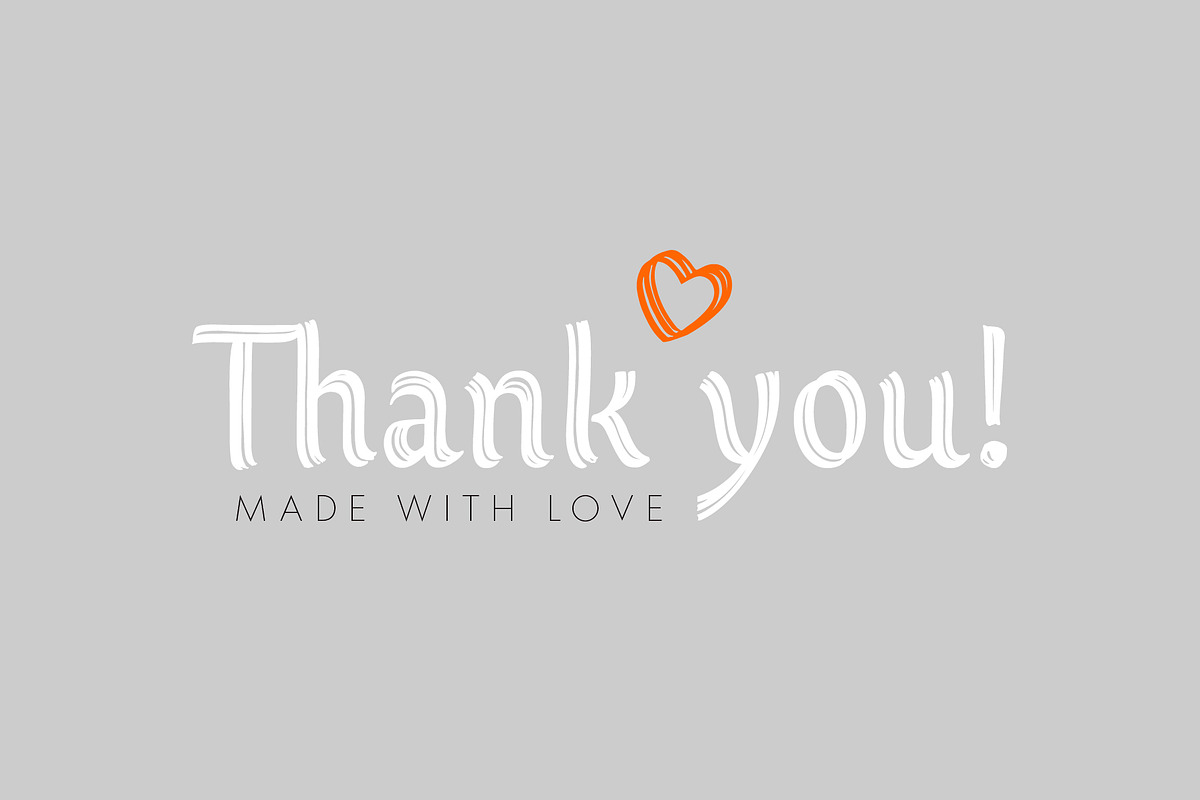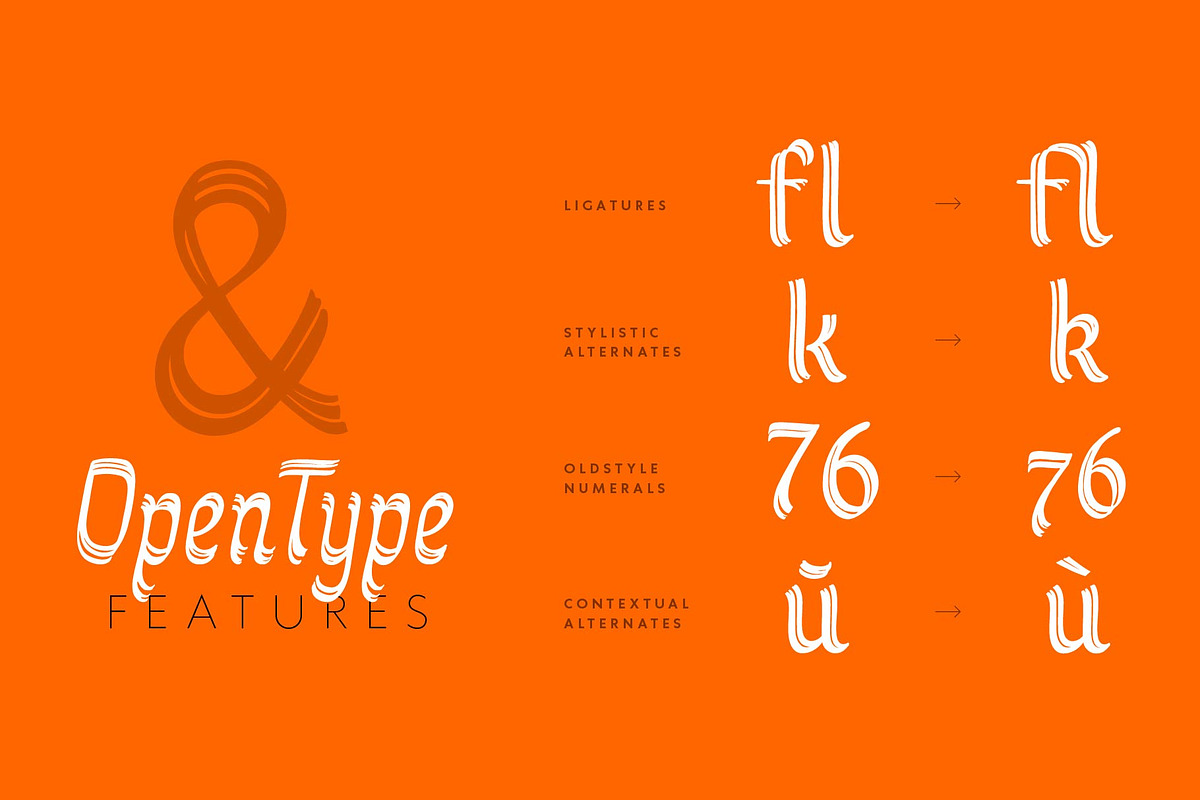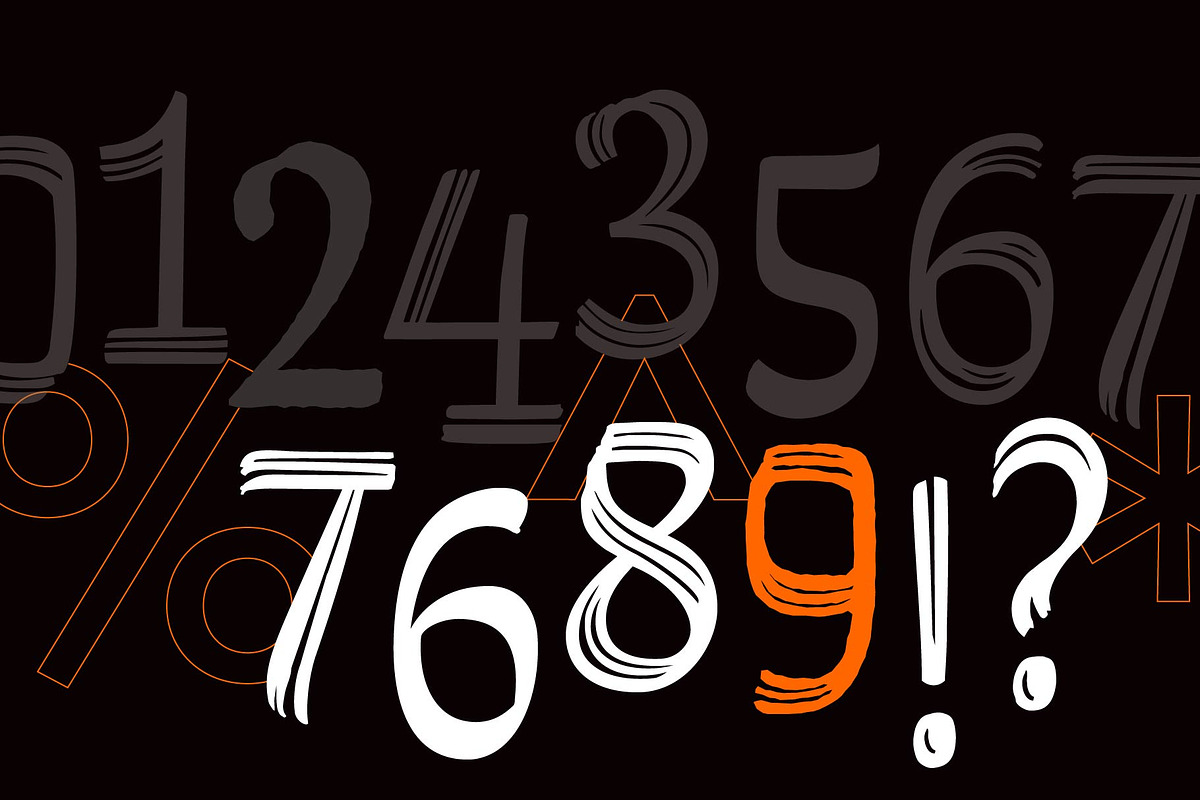
Grafema LC
- Grafema LC was designed by Jacklina Jekova & Todor Georgiev and published by Letter Collective.
Font Family Features:
- 578 glyphs in 7 variants – upright, italic, textured, filled, rough, traditional contrast and inverted;
- Handwritten with a calligraphic flat brush in 2 brush angles – 35° and 85°;
- Extended Latin and Extended Cyrillic;
- Coverage of multiple OpenType features – ligatures, stylistic alternates, and contextual alternates;
- Suitable for web, print, motion graphics, etc;
- Perfect for headlines, posters, packaging and greeting cards, etc.
Grafema LC is a system of display typefaces consisting of 7 variants – upright, italic, textured, filled, rough, traditional contrast and inverted. Grafema LC started off as handwritten calligraphic works using a flat brush and variable angles of writing – 35° and 85°. It supports Extended Latin and Extended Cyrillic – more than 120 languages all together. The balanced natural texture of Grafema LC with unique details makes it perfect for headlines, but also suitable for long text. It is perfect for graphic design projects, like packaging, posters, events, blogs, social media and greeting cards. Grafema LC comes with a range of OpenType features – including old-style numerals, typographic features such as ligatures, stylistic and contextual alternates. The typeface is suitable for web, print and motion graphics.